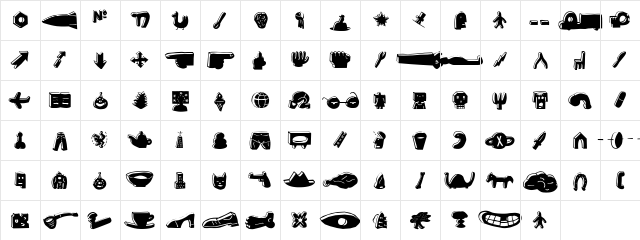
Blockhead Medium
Design Context for Blockhead Typeface
Blockhead is a composed and adaptable typeface that performs quietly and consistently across a wide range of design contexts.